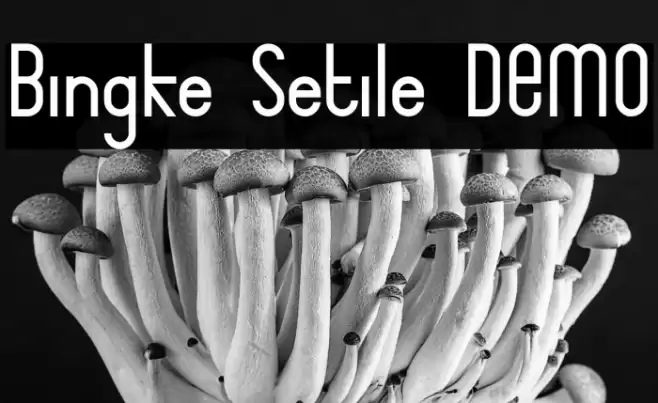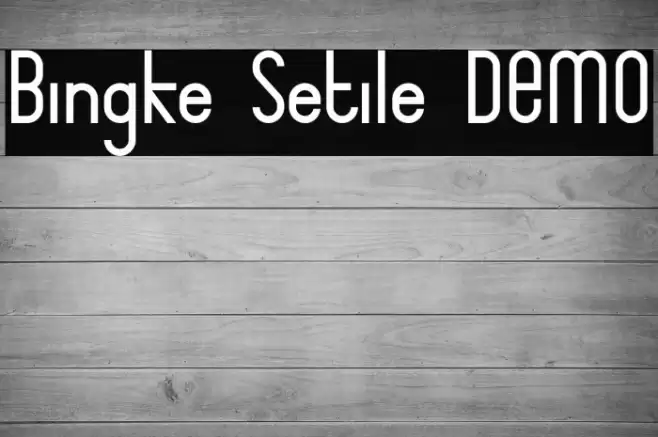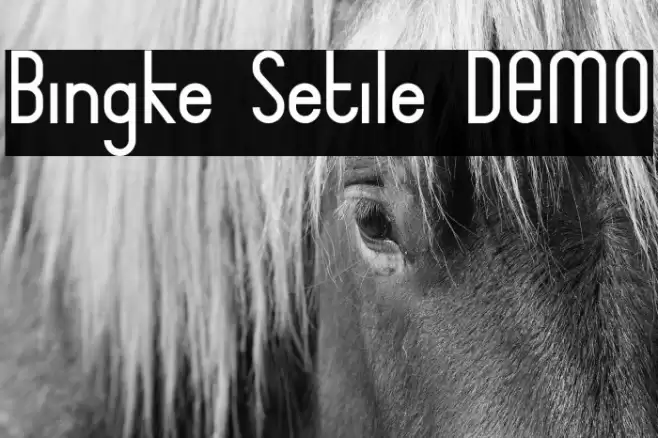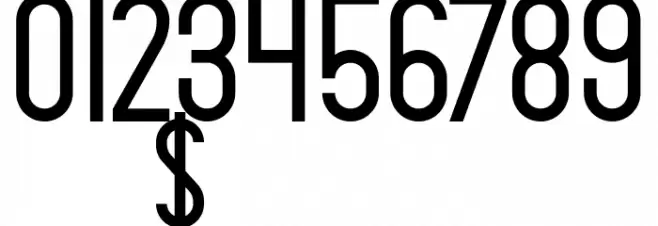
Bingke Setile DEMO Font
Bingke Setile DEMO Description
This font features a modern and sleek design with a geometric structure. The characters are tall and narrow, giving it an elegant and sophisticated appearance. The uppercase letters are uniform in height, while the lowercase letters maintain a consistent baseline, enhancing readability. The numbers are distinct and clear, making them suitable for various applications. The special characters are well-integrated, maintaining the overall aesthetic of the font. Its clean lines and minimalistic style make it versatile for both digital and print media.
A modern, geometric font with tall, narrow characters and a sleek design from Regular fonts.
- Proposed Projects: Ideal for branding, advertising, and editorial design projects that require a modern and clean look.
- Use Case: Headlines, Logos, Branding